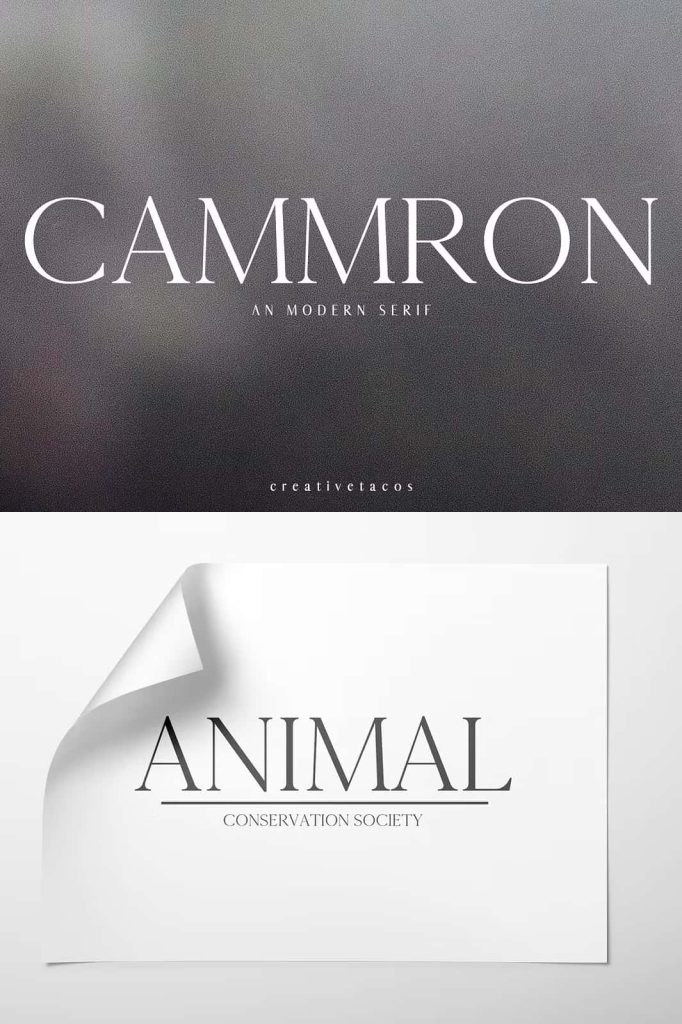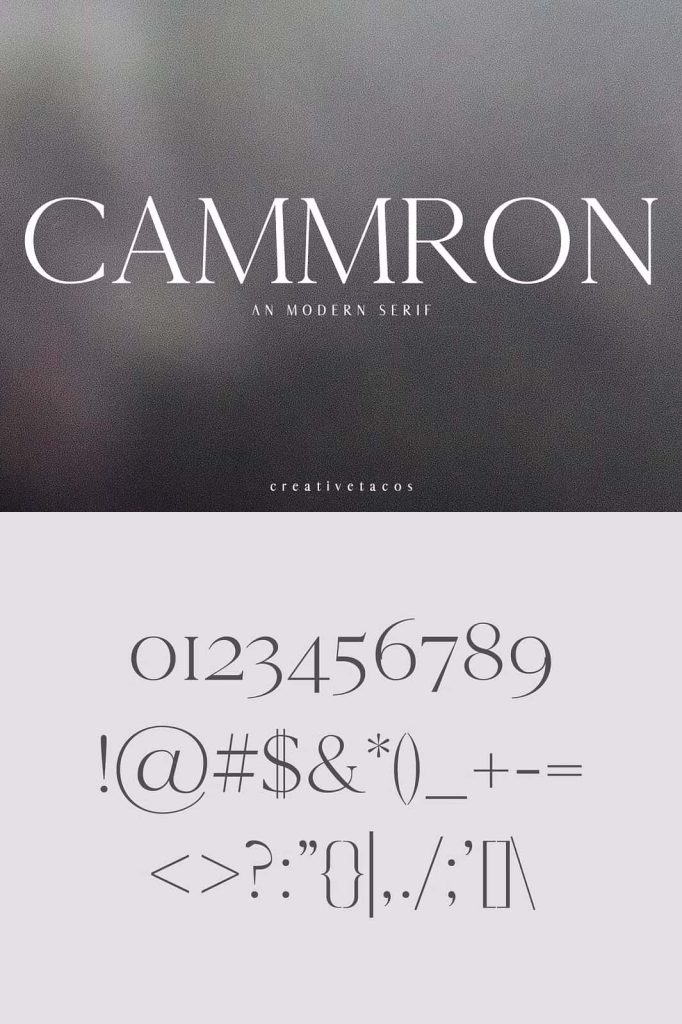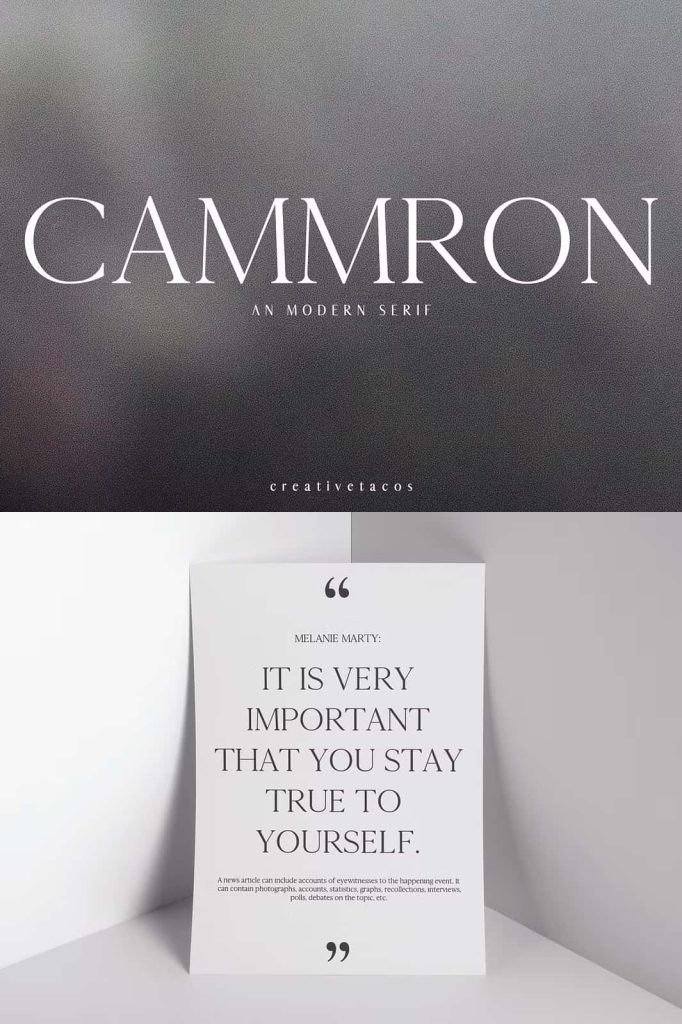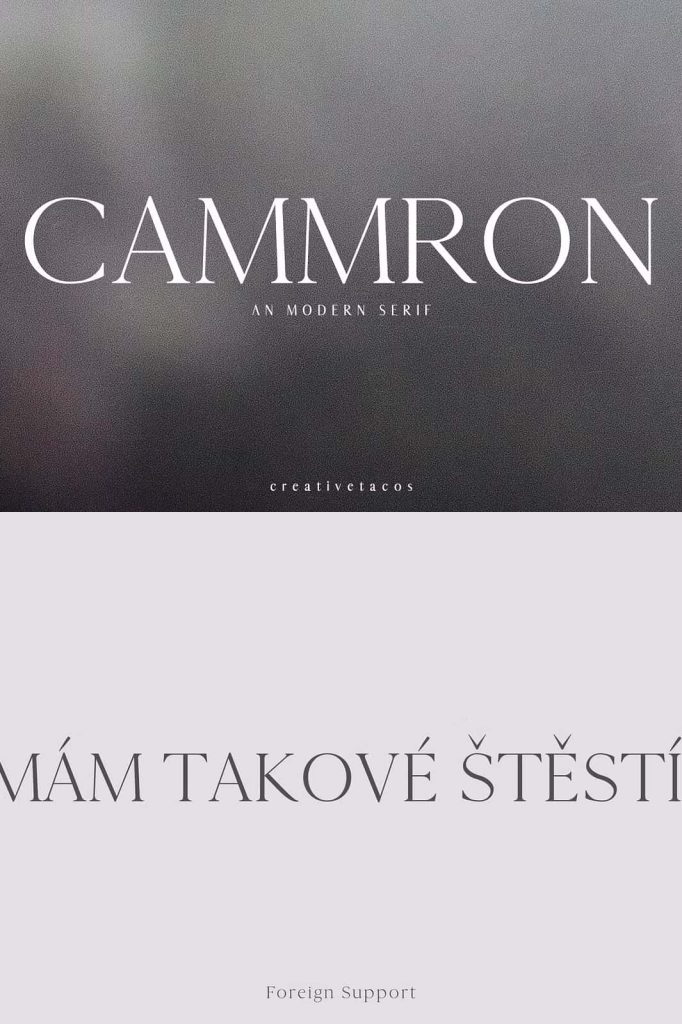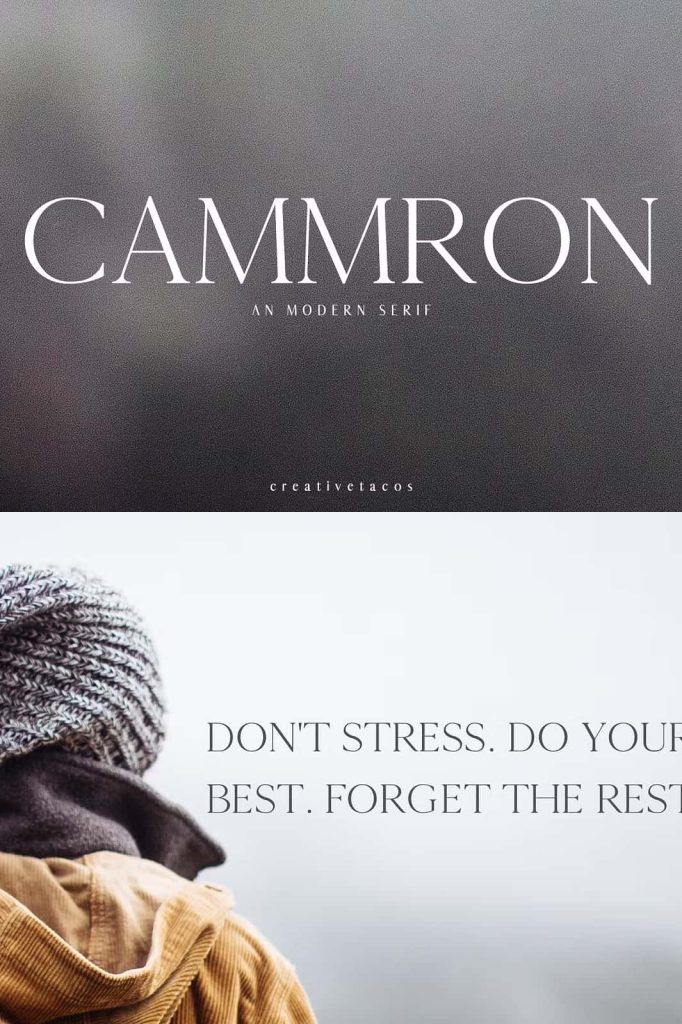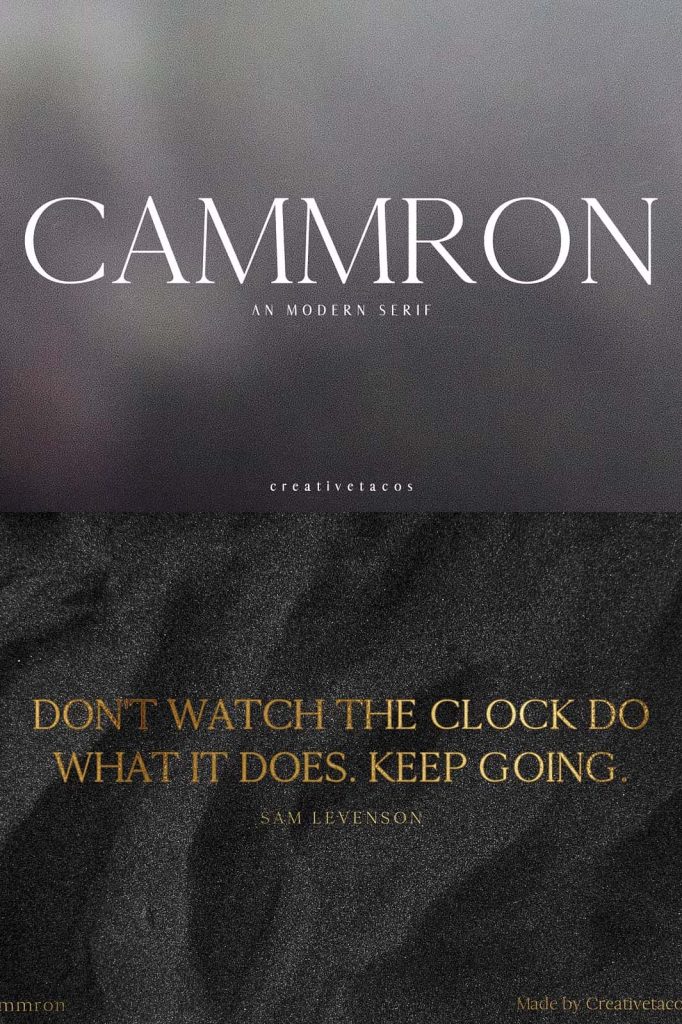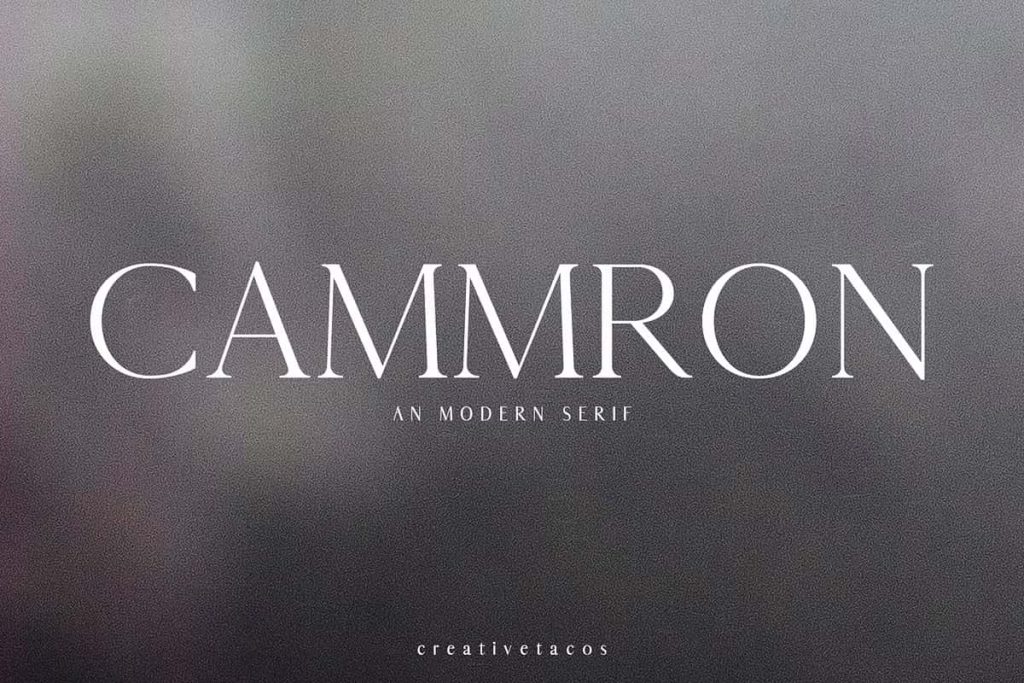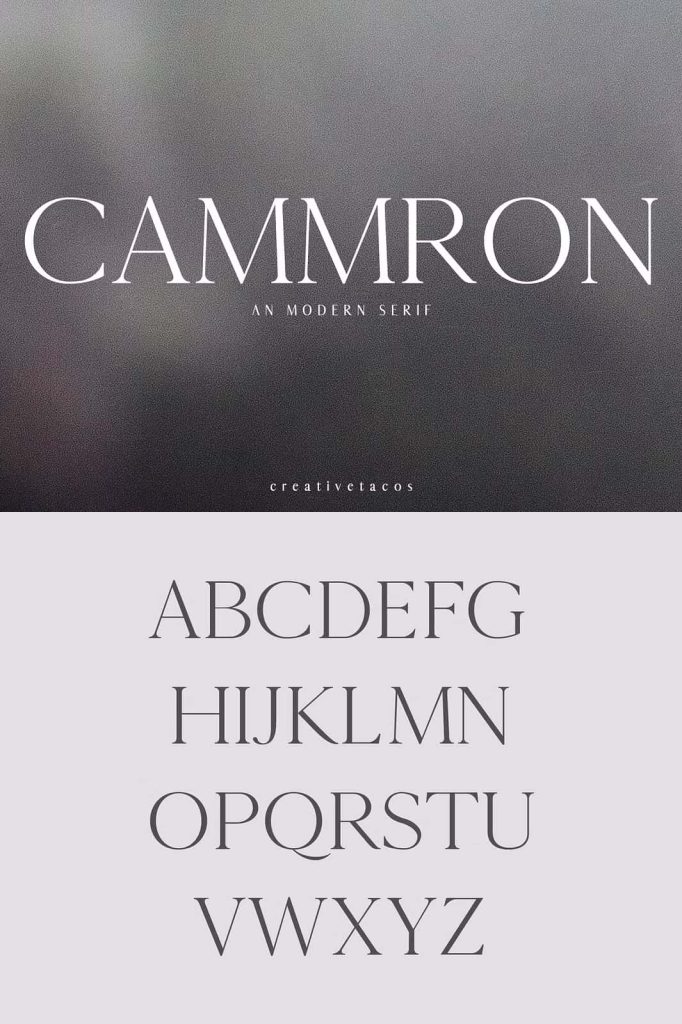
Cammron: A Modern Dashing Serif Font Family for Elegant and Creative Design
Cammron is a modern serif font family designed to deliver elegance, confidence, and strong visual appeal across a wide range of creative applications. Built with a refined balance between classic serif tradition and contemporary styling, Cammron offers a dashing personality that immediately captures attention. Its carefully crafted letterforms project sophistication while remaining highly functional for modern design needs.
This font family was created for designers who want to communicate clarity, authority, and style at the same time. Whether used in bold headlines or refined editorial layouts, Cammron brings a distinctive voice that enhances visual storytelling and strengthens brand identity.
Modern Serif Design with a Bold Personality
Cammron stands out through its modern serif construction, combining sharp details with smooth curves to create a dynamic and expressive typographic tone. The serifs are designed to feel confident and contemporary rather than overly decorative, allowing the font to adapt seamlessly to both classic and modern design environments.
The proportions of Cammron are carefully balanced to ensure strong readability while maintaining visual impact. Each character is shaped to work harmoniously within words and lines of text, making the font especially effective for large-scale typography such as titles, magazine headings, and display text.
Complete Glyph Set and Multilingual Support
Cammron includes a full set of basic glyphs along with support for Non-English characters, making it suitable for international and multilingual projects. This comprehensive coverage allows designers to maintain typographic consistency across different languages without compromising style or legibility.
From punctuation and numerals to accented characters, every glyph is designed with the same attention to detail as the core letterforms. This ensures that Cammron performs reliably in both print and digital formats, regardless of the language or platform.
Perfect Pairing with Script and Handwriting Fonts
One of Cammron’s strongest advantages is its ability to pair beautifully with script, signature, or handwriting-style fonts. Its structured serif design provides a strong visual anchor when combined with more expressive or fluid typefaces. This makes it an excellent choice for layered typography, where contrast and harmony are essential.
Designers can confidently use Cammron for primary text elements while introducing script fonts for accents, highlights, or personal touches. This pairing works especially well in branding, invitations, packaging, and editorial layouts where emotional connection and visual hierarchy matter.
Strong Readability and Visual Impact
Cammron is optimized for headline and display use, where clear letterforms and strong contrast play a key role. The font maintains legibility even at smaller sizes, while truly shining when scaled up for impactful titles and statements. Its confident strokes and defined serifs help guide the reader’s eye and reinforce the message.
This balance between readability and style makes Cammron a dependable choice for designers who need typography that performs well without losing character.
Versatile Applications Across Creative Design
Cammron was designed with versatility in mind, making it suitable for nearly any creative design project. It excels in headlines, titles, and magazine headings, where its bold personality adds authority and refinement. In logo design and branding, Cammron helps establish a strong and memorable visual identity.
The font also performs exceptionally well in advertising, posters, and quotes, where impactful typography is essential for grabbing attention. Its modern serif style communicates professionalism while remaining expressive and engaging.
Ideal for Print and Digital Media
Cammron adapts seamlessly to both print and digital environments. It works beautifully in web layouts, offering clarity and elegance across different screen sizes. In print applications such as books, invitations, and packaging design, Cammron enhances the overall aesthetic with a polished and premium feel.
Whether used for branding materials, editorial spreads, product packaging, or creative campaigns, Cammron maintains a consistent and refined presence that elevates the final design.
A Serif Font Family Built for Creative Freedom
Cammron is more than just a modern serif font family; it is a versatile design tool built to support creativity and expression. Its dashing character, multilingual support, and strong pairing potential make it an essential choice for designers seeking elegance without limitation.
For anyone looking to create visually compelling and professional designs, Cammron delivers the perfect balance of style, readability, and adaptability across all creative platforms.